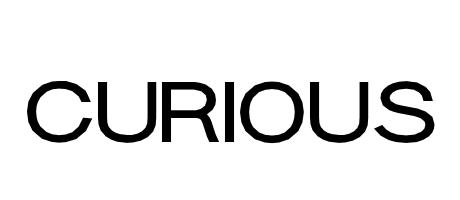
Curious
By Christie Creative
Curious, a font brimming with inquisitive energy, boasts a clean, modern sans-serif design. Its subtly condensed letterforms hint at a playful intelligence, while the consistent weight delivers a straightforward yet engaging readability. Perfect for projects demanding both sophistication and a touch of playful curiosity.